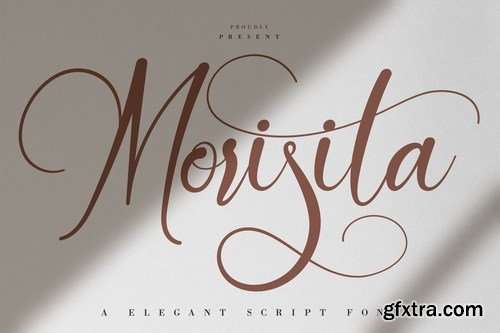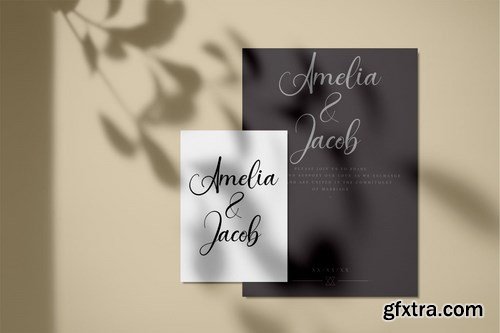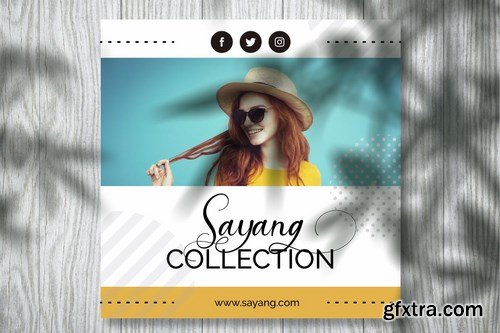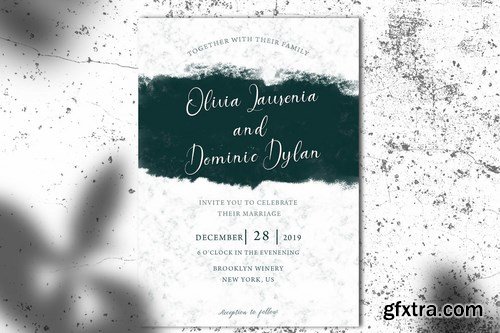
Morisita | Elegant Script Font with a calligraphy style, So beautiful on invitation like greeting cards, branding materials, business cards, quotes, posters, and more!
The alternative characters were divided into several Open Type features such as Stylistic Sets, Stylistic Alternates, Contextual Alternate, SWASH and Ligature. The Open Type features can be accessed by using Open Type savvy programs such as Adobe Illustrator, Adobe InDesign, Adobe Photoshop Corel Draw X version, And Microsoft Word. And this Font has given PUA unicode (specially coded fonts). so that all the alternate characters can easily be accessed in full